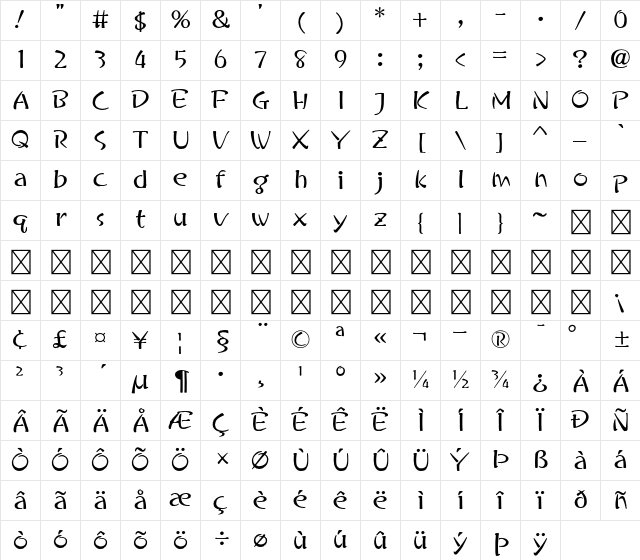
A P-OTF Hasemin StdN B
Style: B
Designer: Shinsaku Hasegawa
Design Context for A P-OTF Hasemin StdN
A P-OTF Hasemin StdN is a composed and adaptable typeface that performs quietly and consistently across a wide range of design contexts.